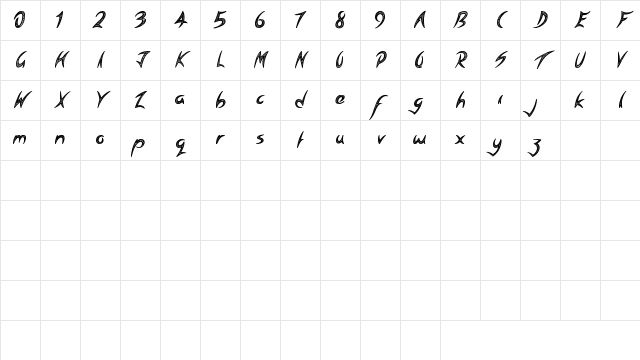
Spiritual Ritual Regular
Foundry: Jonathan Stephen Harris
Designer: Jonathan S. Harris
Design Context for Spiritual Ritual
Spiritual Ritual is a composed and adaptable typeface that performs quietly and consistently across a wide range of design contexts.
Pro Tip: Use Spiritual Ritual in both headline and body roles to test its range before committing to a single application.